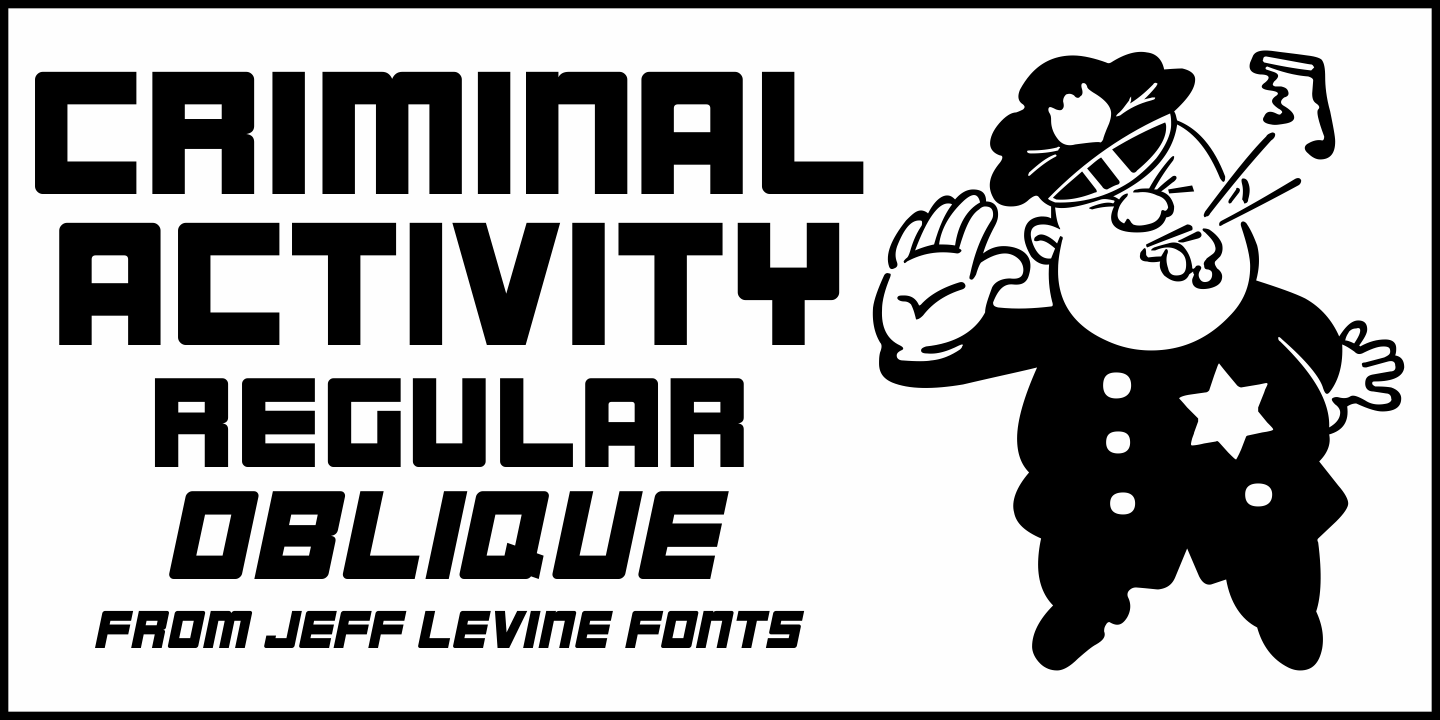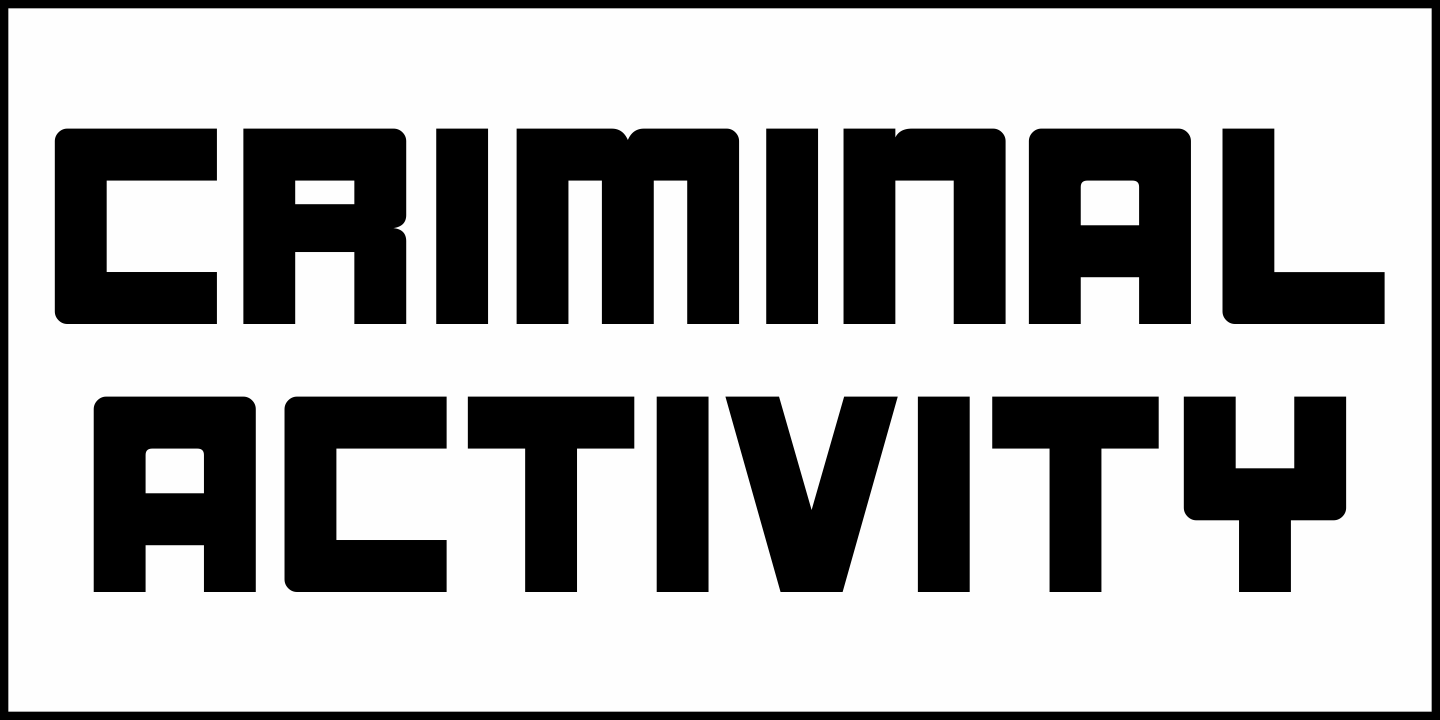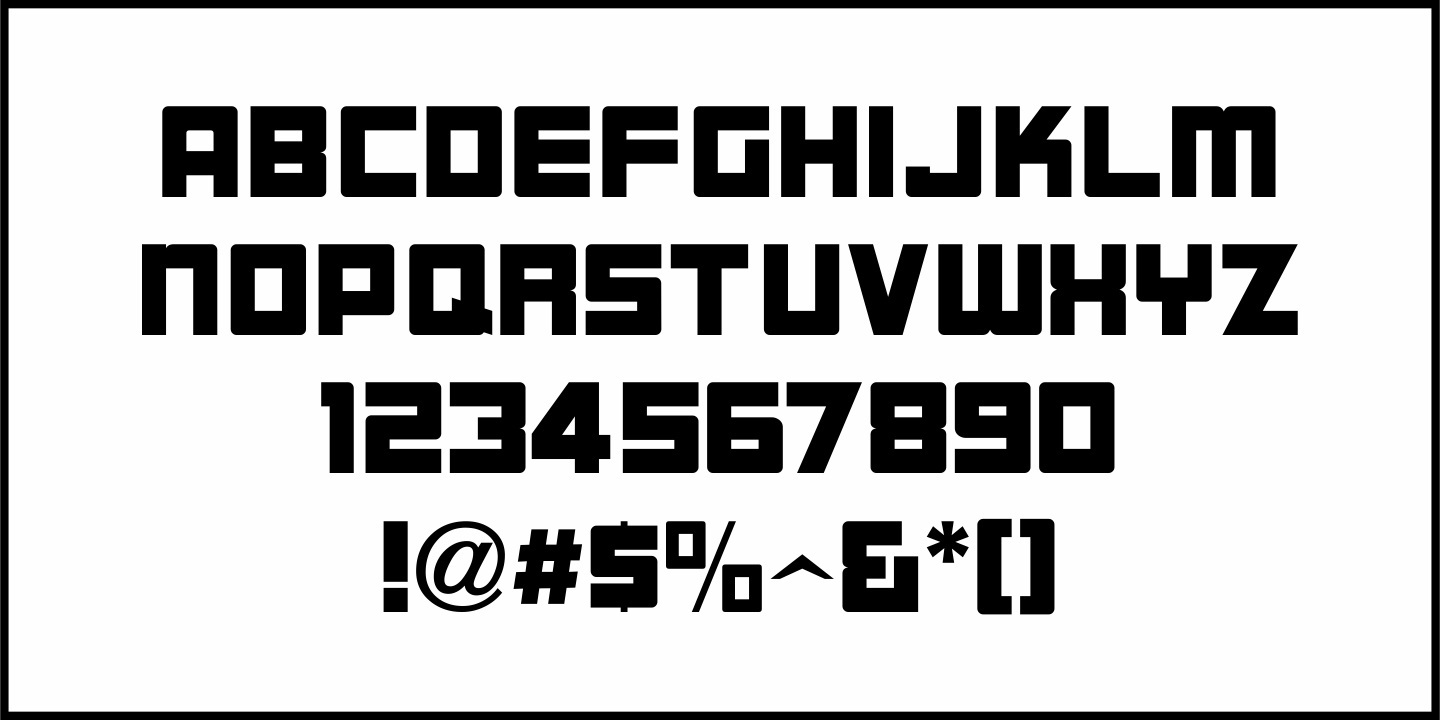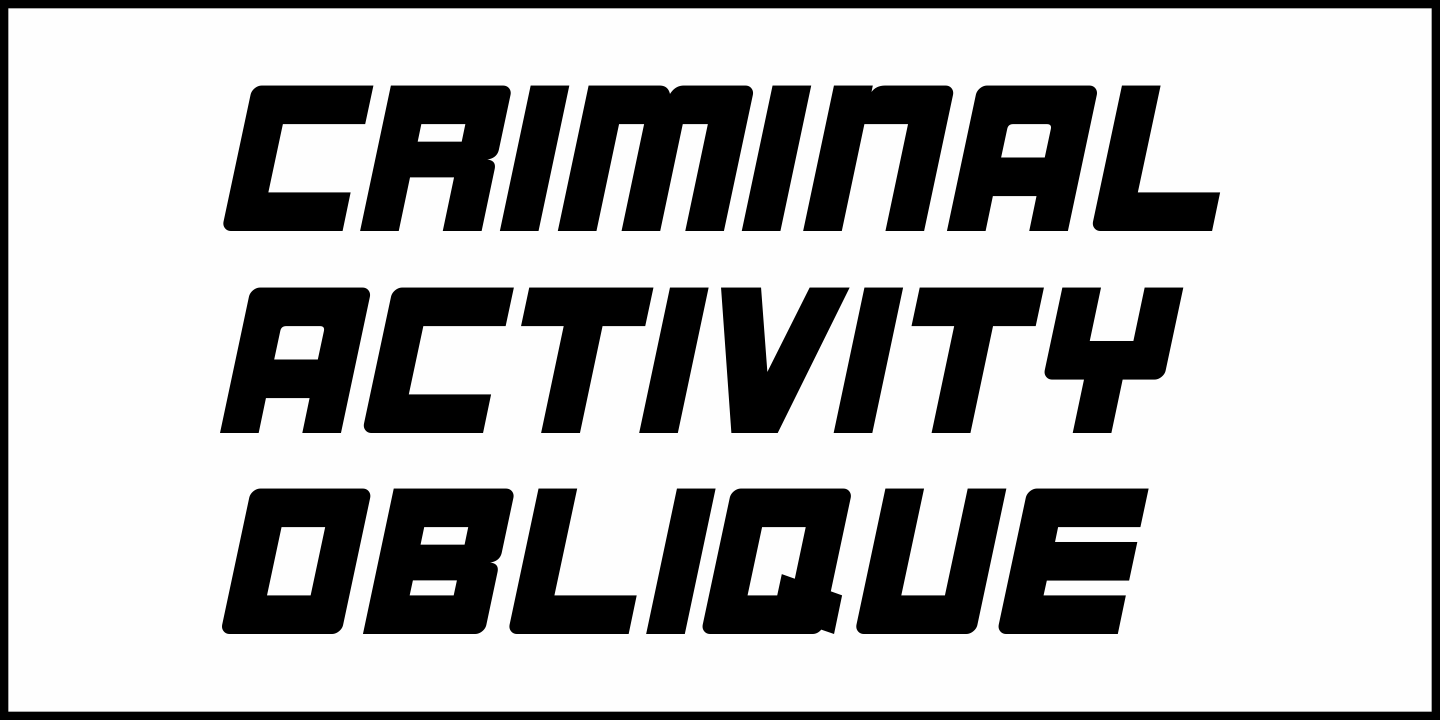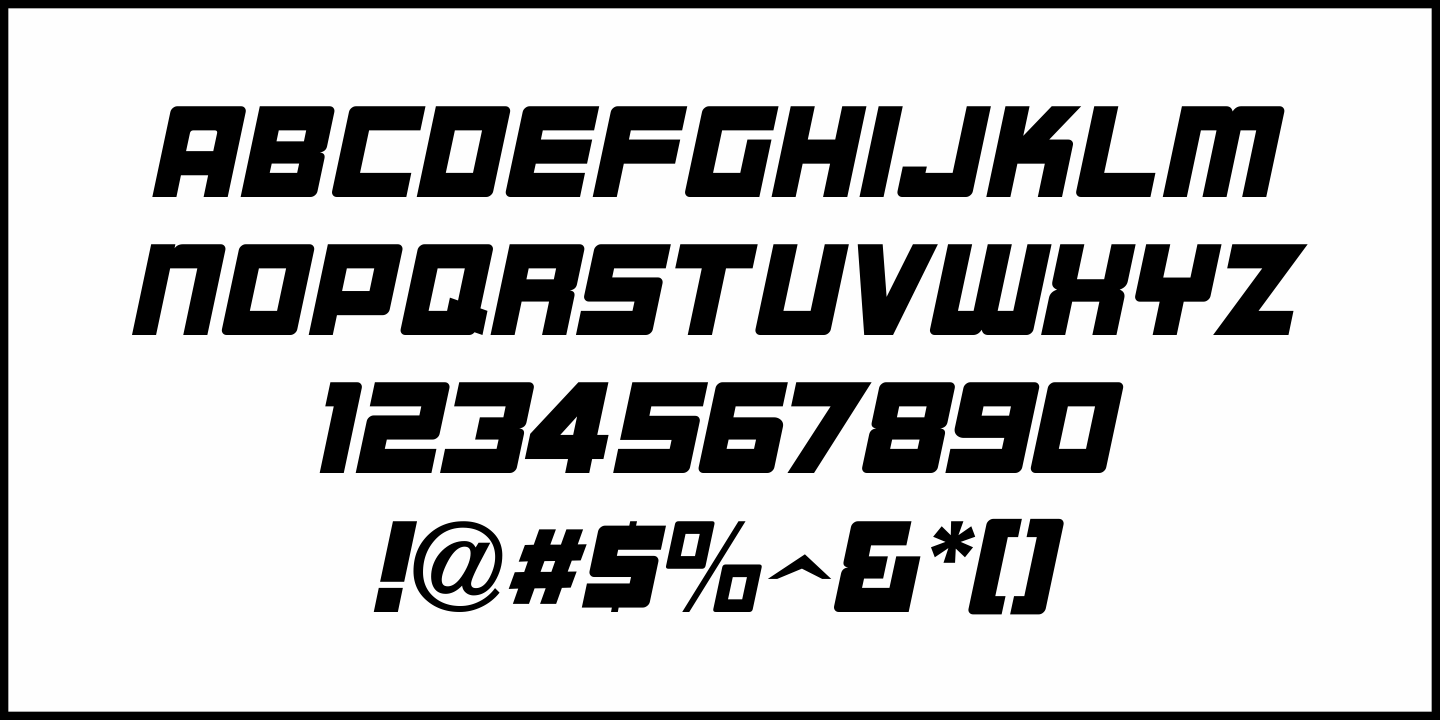
Criminal Activity
An ad in the November 19, 1935 issue of the trade paper The Film Daily was for the movie "Crime and Punishment". The hand lettering was rendered in an ultra bold, squared sans serif with rounded corners.
This is now available as Criminal Activity JNL in both regular and oblique versions.